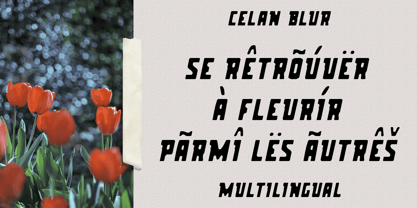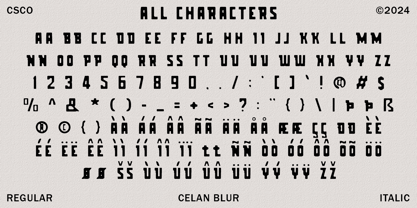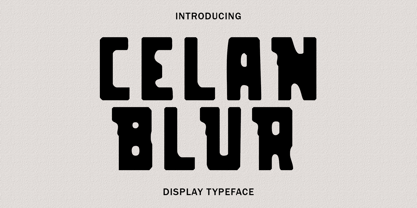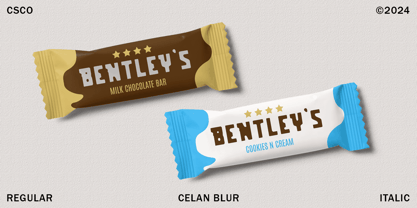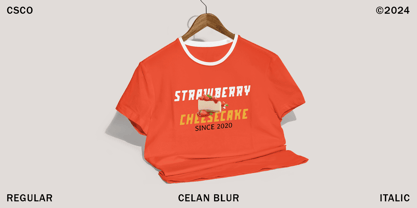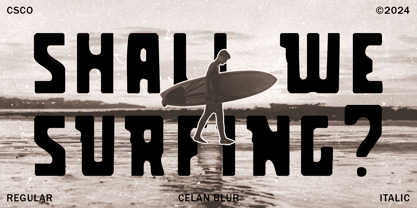
Celan Blur
by Craft Supply Co
Celan Blur: Where Retro Elegance Meets Soft Focus
Retro Blur Bold Serif Font
Celan Blur is a bold serif font that combines retro elegance with a unique blur effect. Perfect for creating eye-catching displays, this font adds a sophisticated yet nostalgic touch to your designs.
Bold Serif with a Retro Blur Vibe
With its strong lines and soft blur effect, Celan Blur offers a fresh take on traditional serif fonts. The retro-inspired design and gentle blur create a captivating and dynamic look, ideal for posters, digital media, and other projects that need a striking and nostalgic appeal.
Perfect for Striking Displays
Whether you’re designing a flyer for a vintage-themed event or creating packaging for a retro-inspired product, Celan Blur is sure to make a statement. Its bold design and blur effect make it perfect for displays that demand attention and convey a sense of retro charm.
Versatile and Easy to Use
Despite its unique appearance, Celan Blur is versatile and easy to use. The font works well in both large and small sizes, making it suitable for a variety of applications, from headlines and banners to logos and more. With its blend of bold serif design and blur vibe, Celan Blur adds a captivating and nostalgic touch to any design.
Designers: Trio Nazzar Saputra, Wahyu Hadi Yuana
Foundry: Craft Supply Co